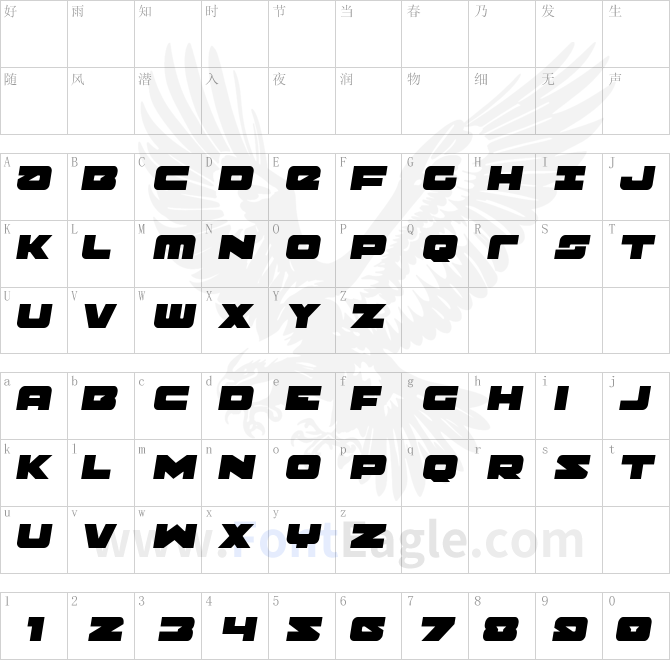
Banjin-Semi-Italic is a great font, widely used in graphic design, single-page menu design, poster design and other fields, and is deeply loved by designers.Banjin-Semi-Italic download.